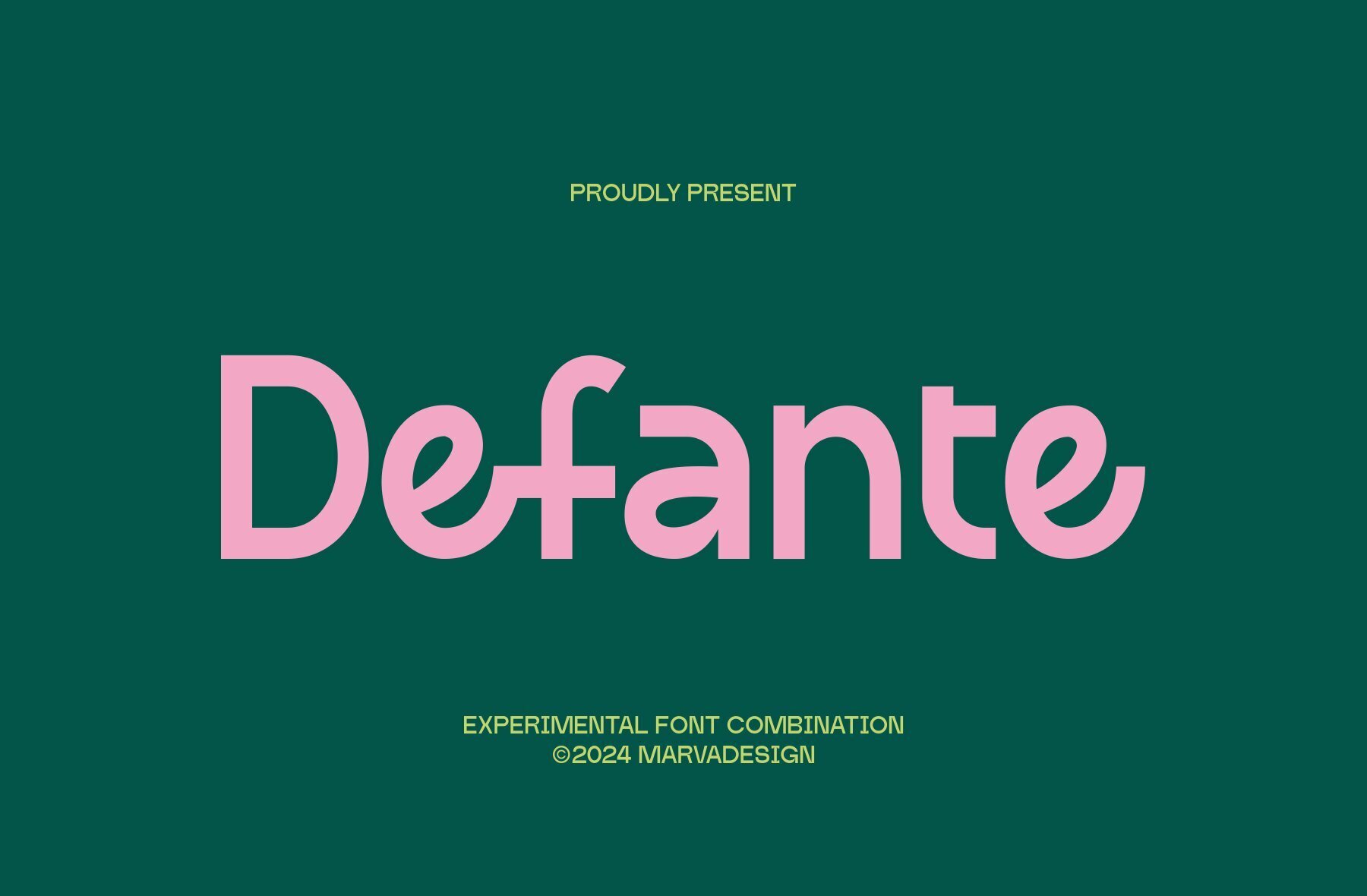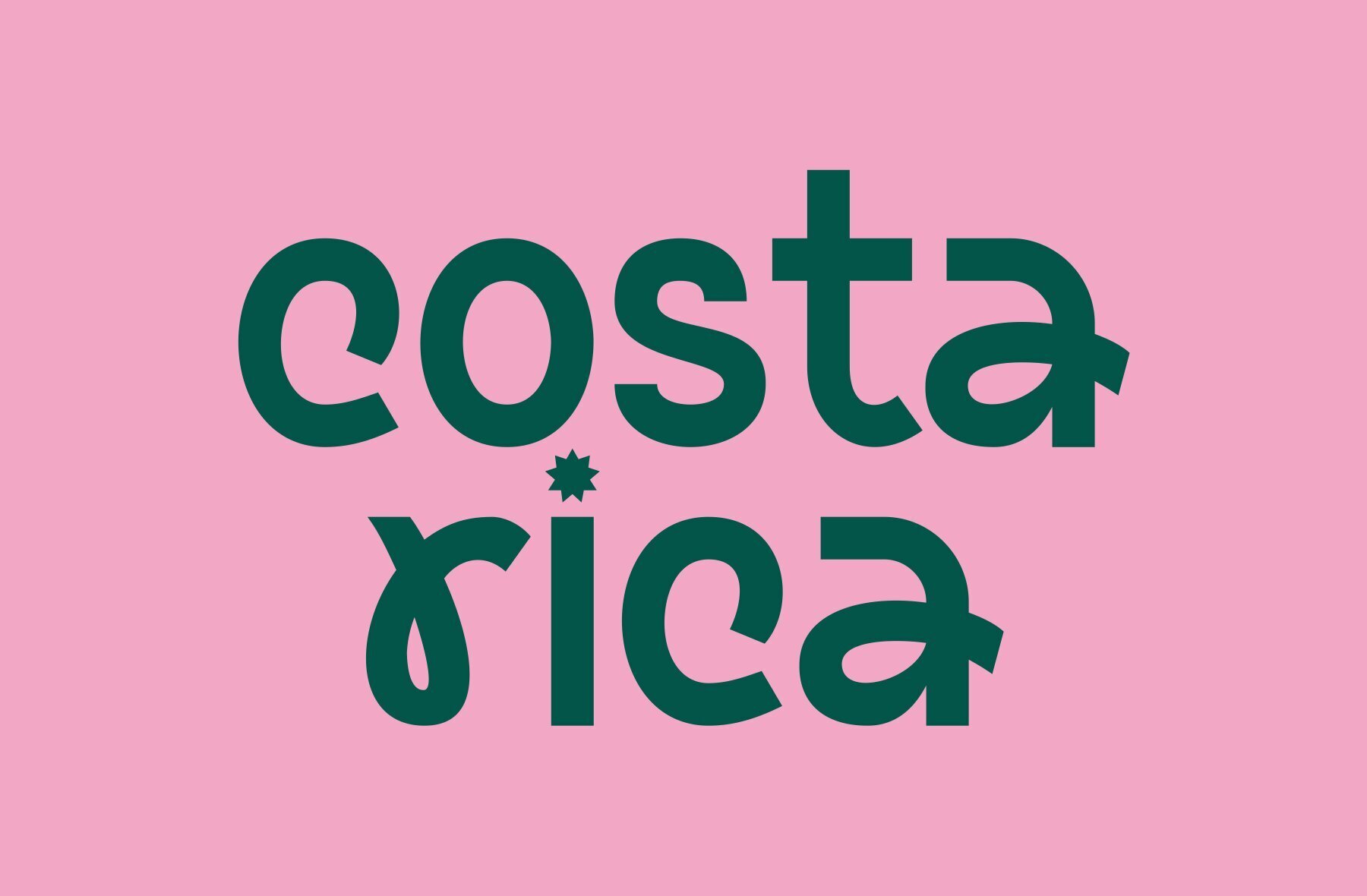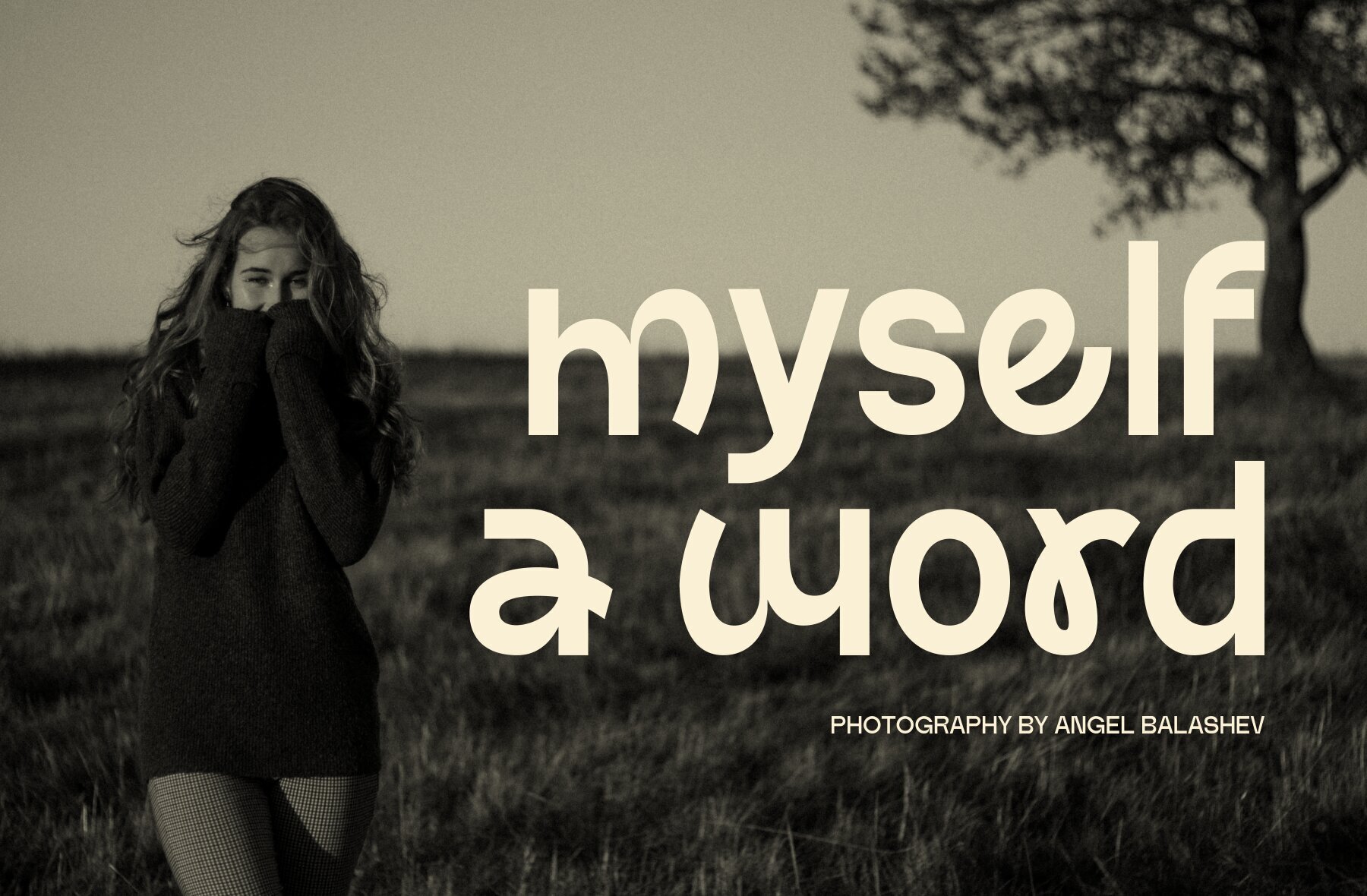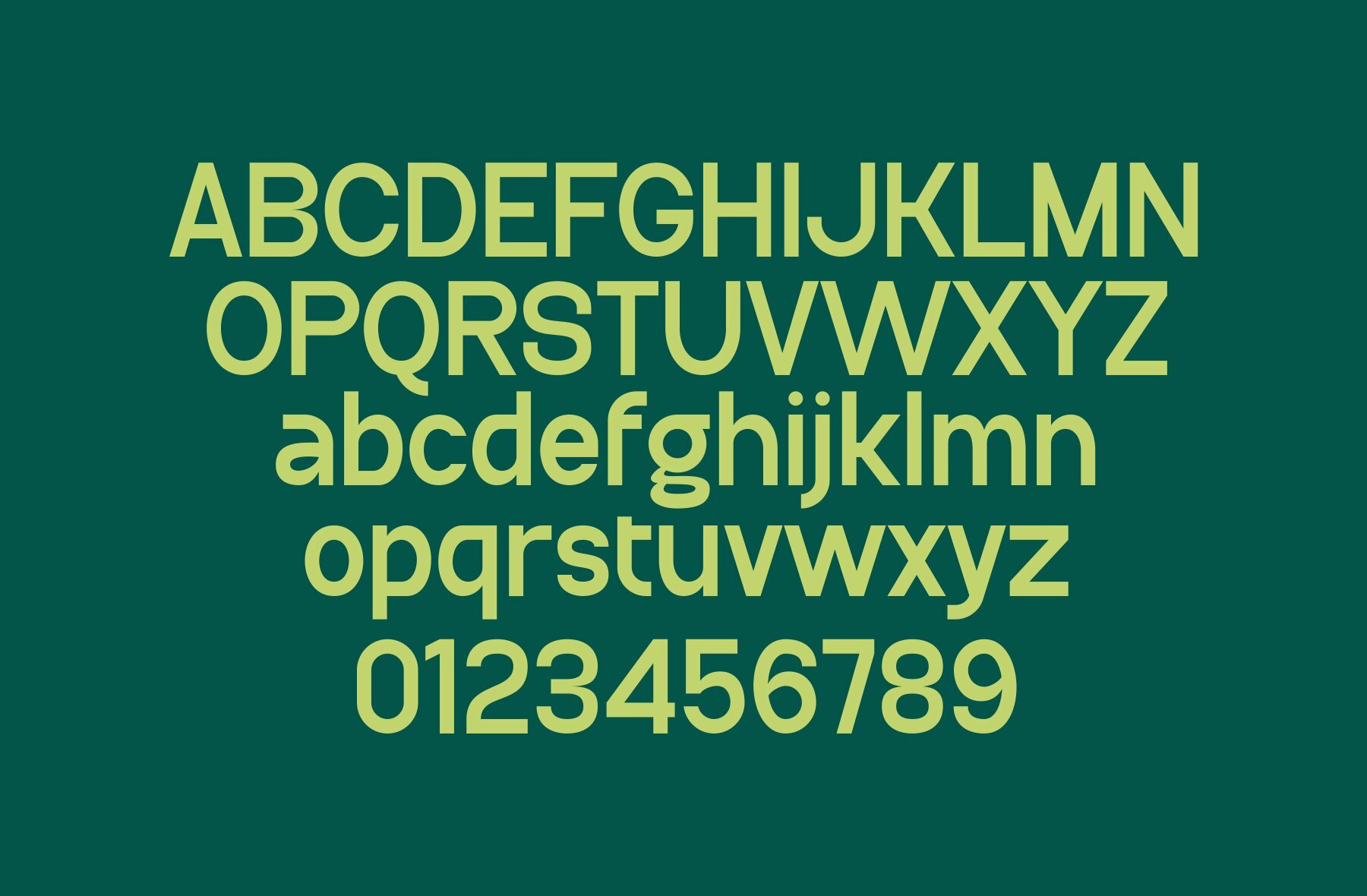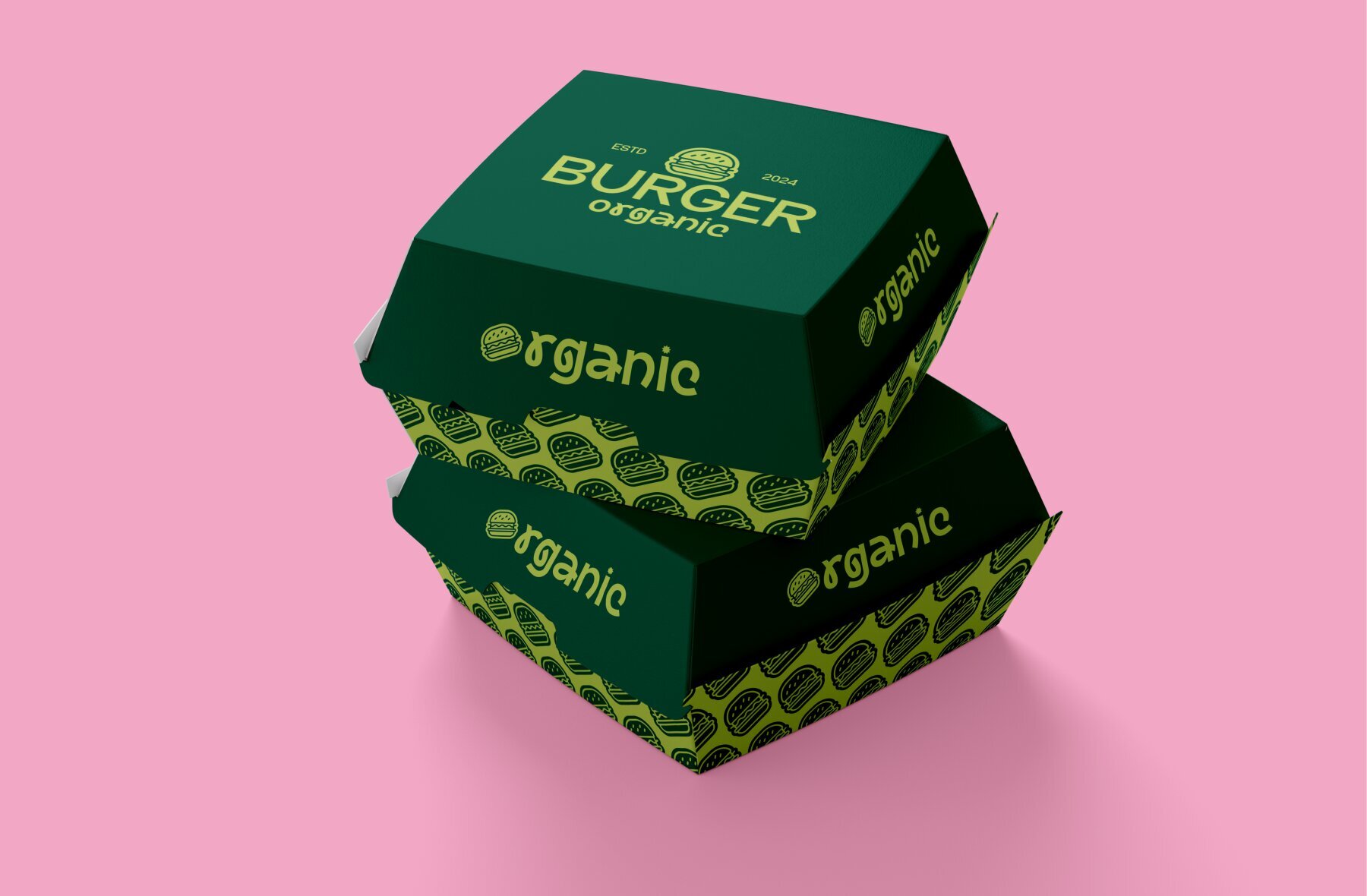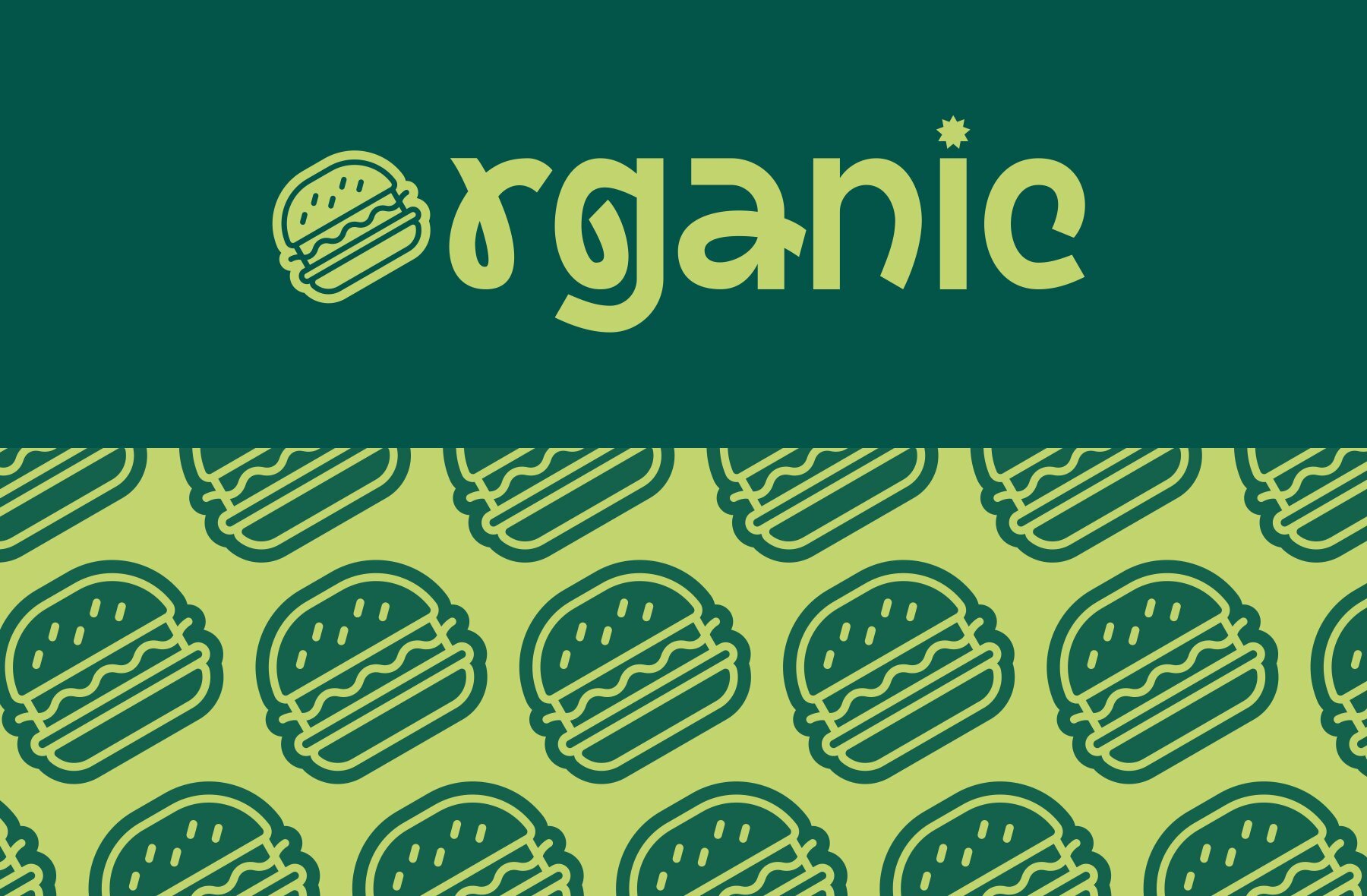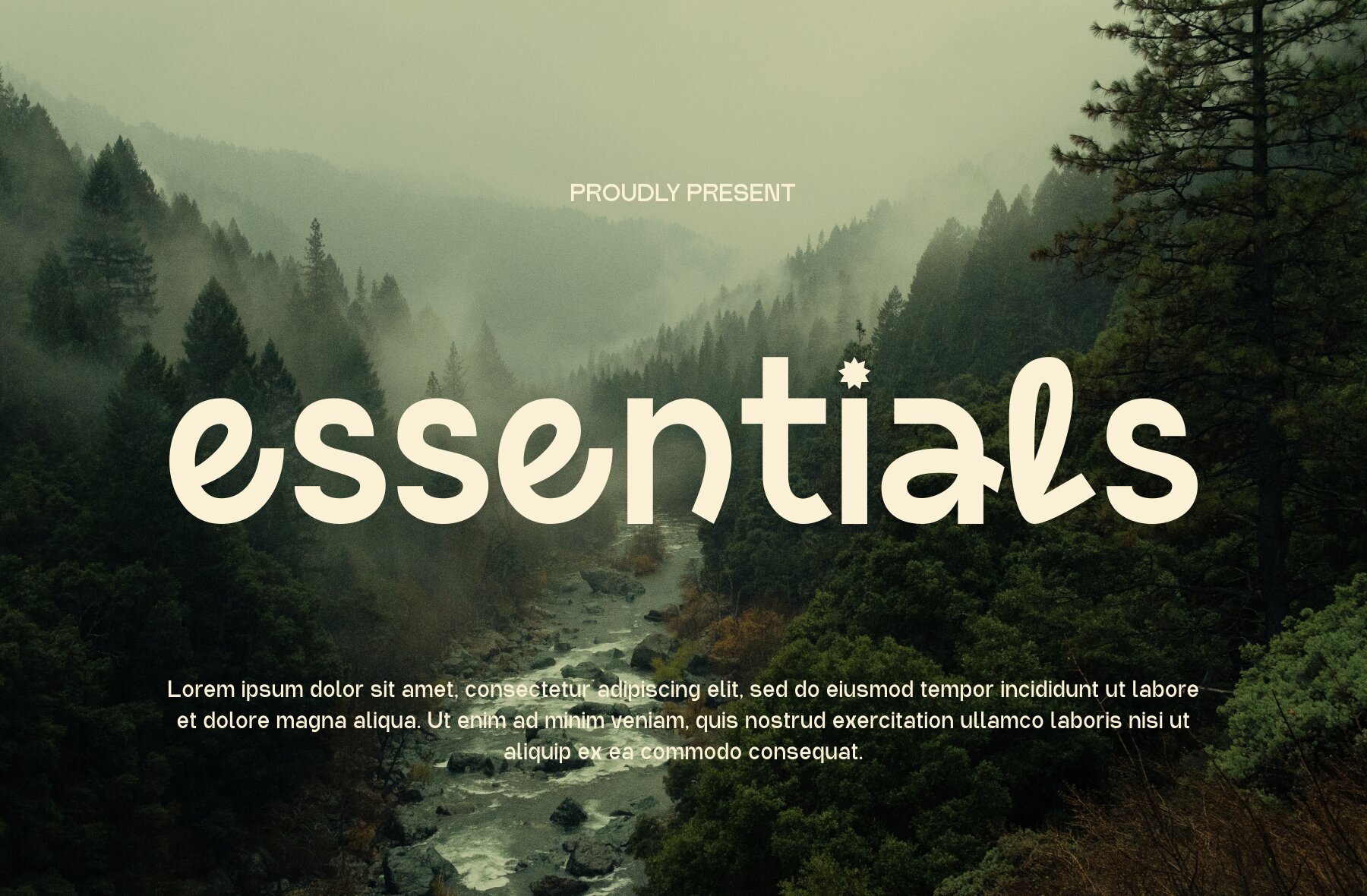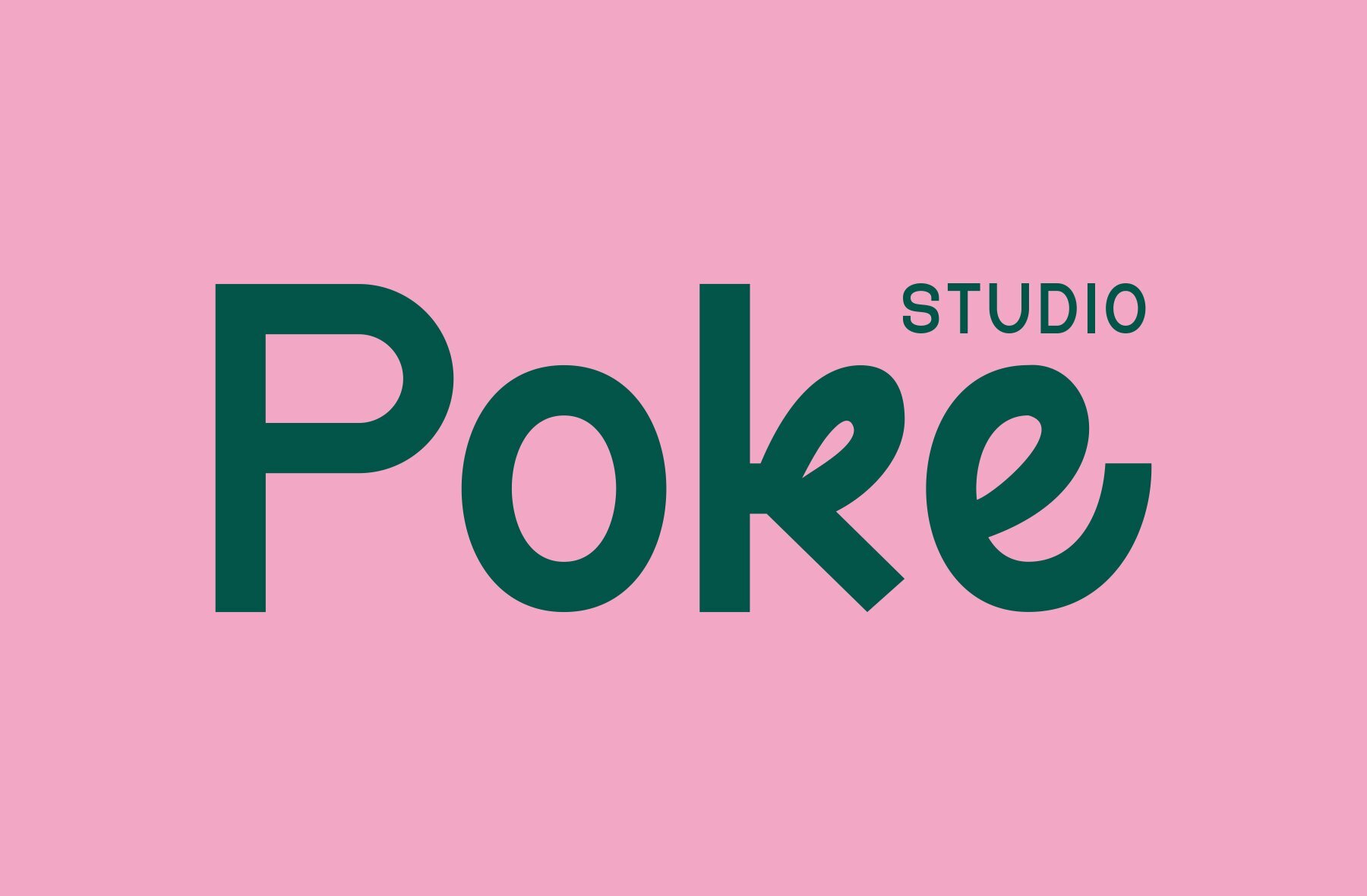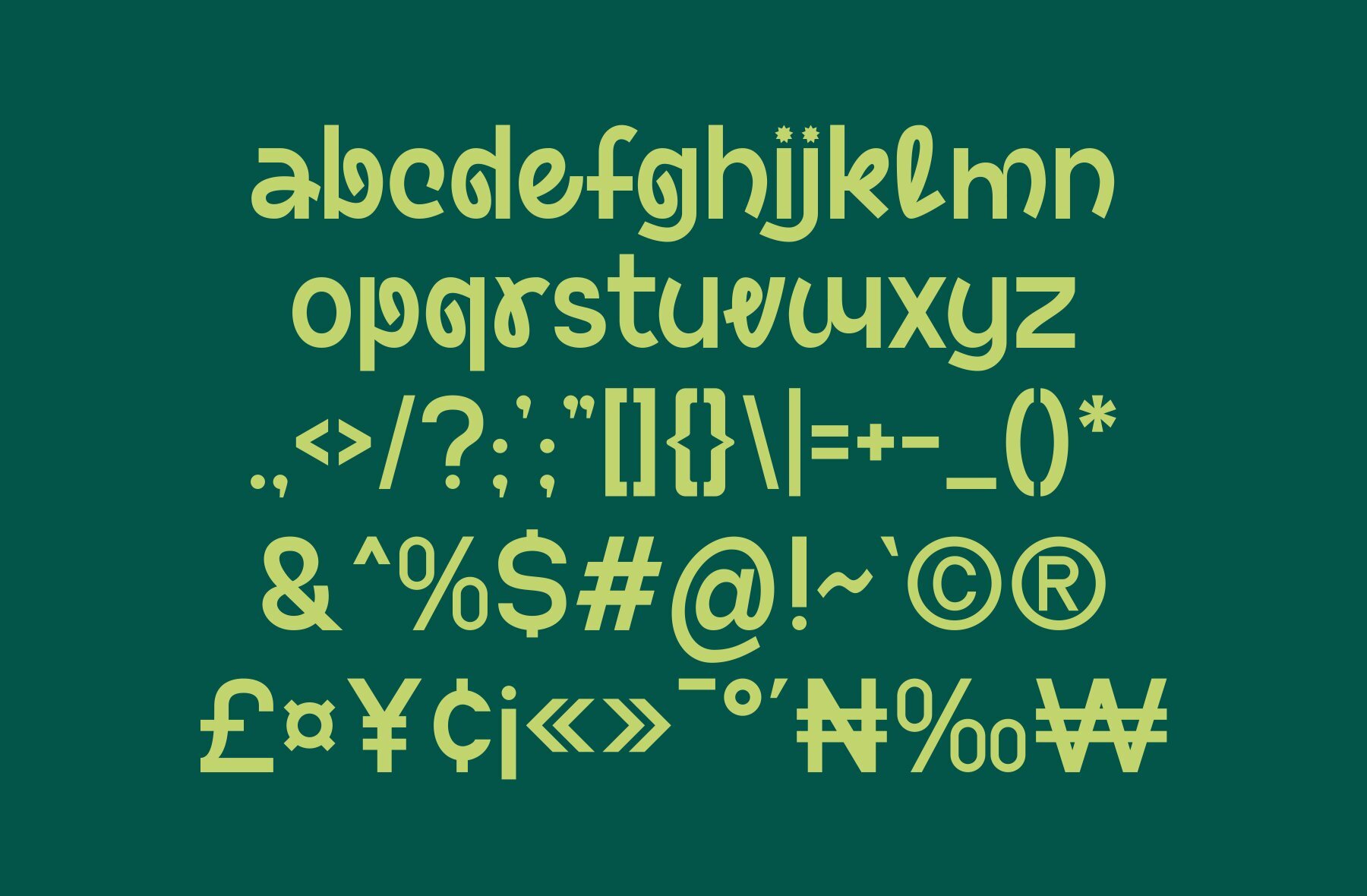
Defante Font
Defante Regular
Introducing Defante is a versatile sans-serif font that exudes modernity and elegance. It features a unique combination of alternate lowercase characters, blending clean lines with a semi-handwritten style. This fusion of structured geometry and organic flow gives Defante a distinctive personality, making it an ideal choice for brand identity, logotypes, and other creative applications where a balance of professionalism and individuality is desired. The font's clean and readable design, coupled with its subtle handwritten elements, ensures that it stands out while remaining highly functional in various design contexts.